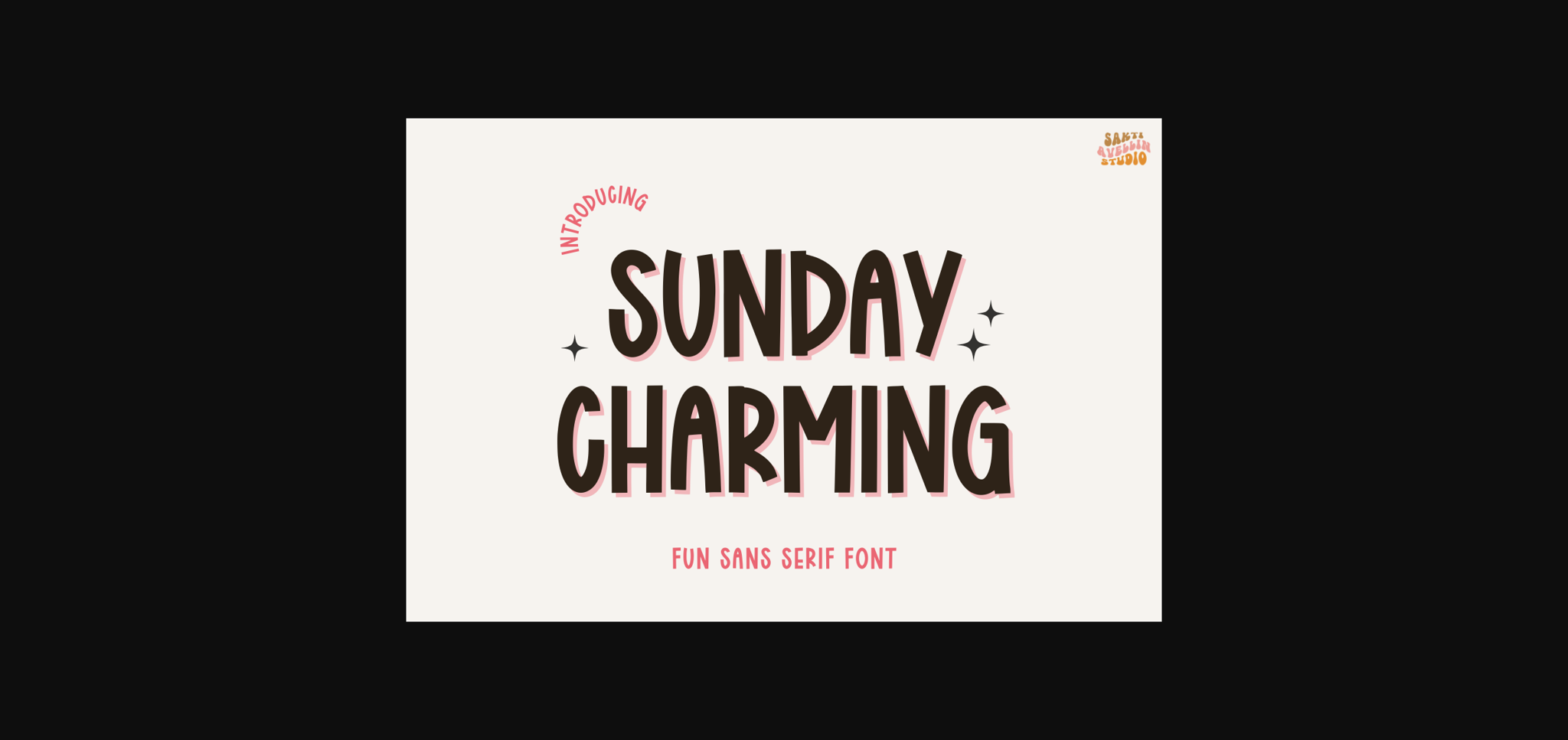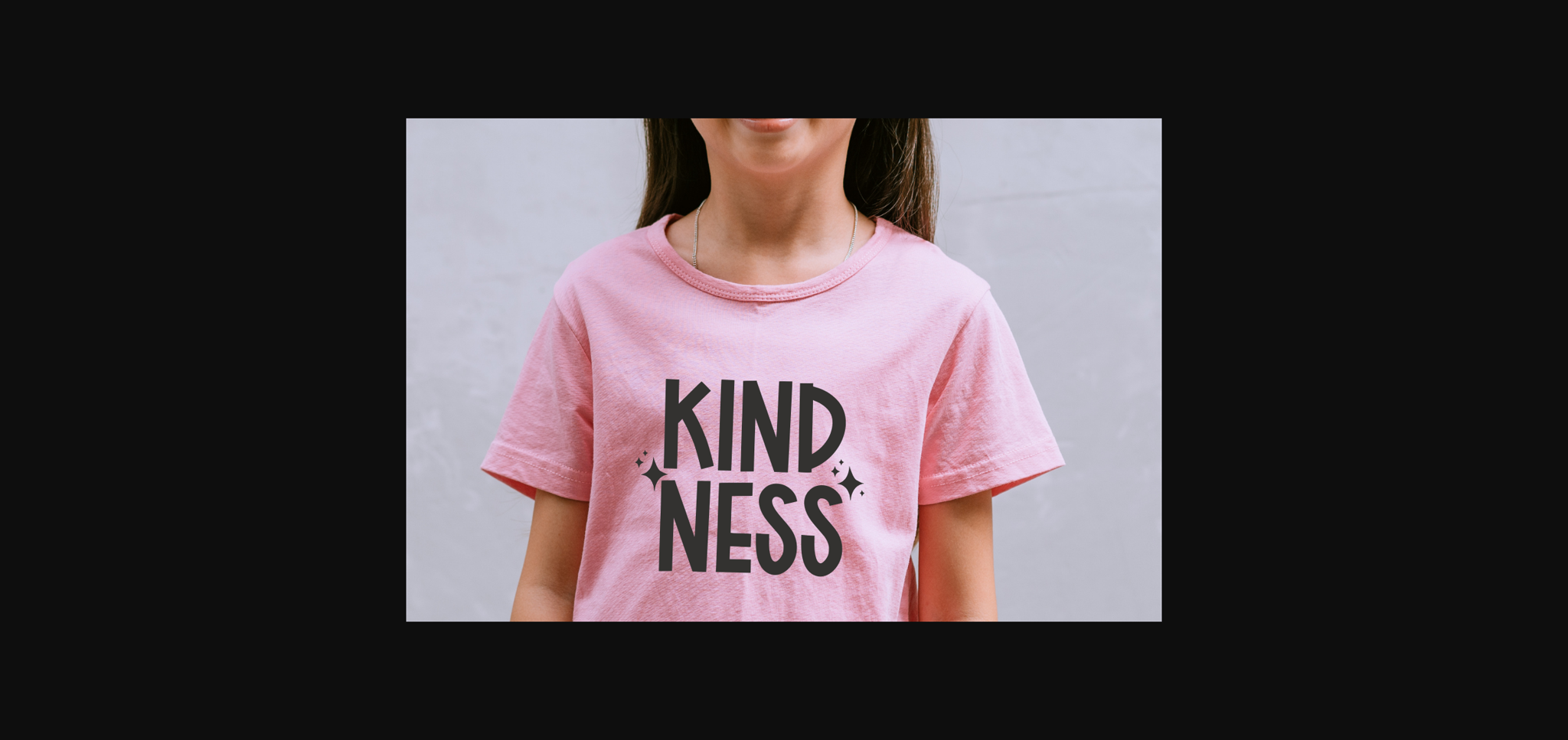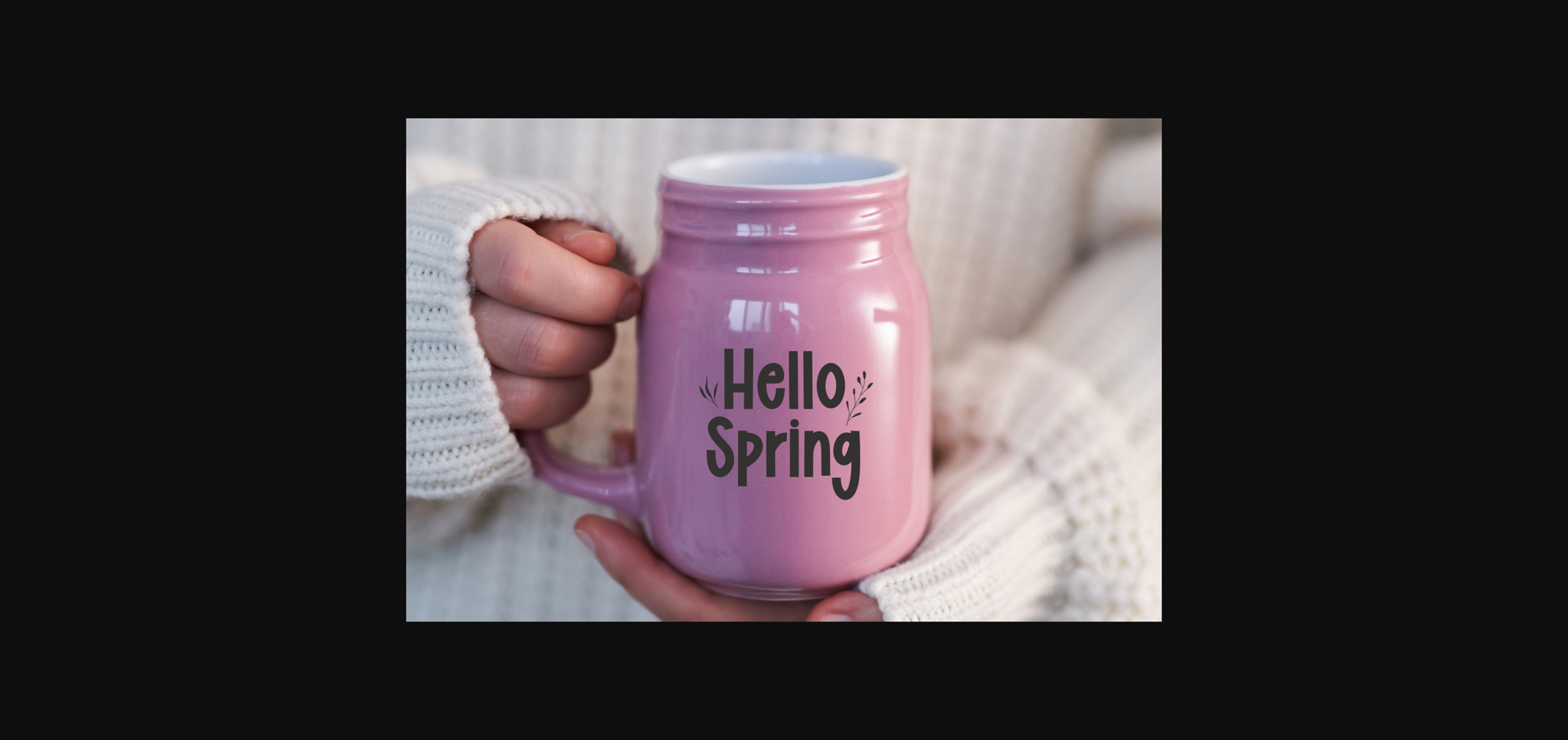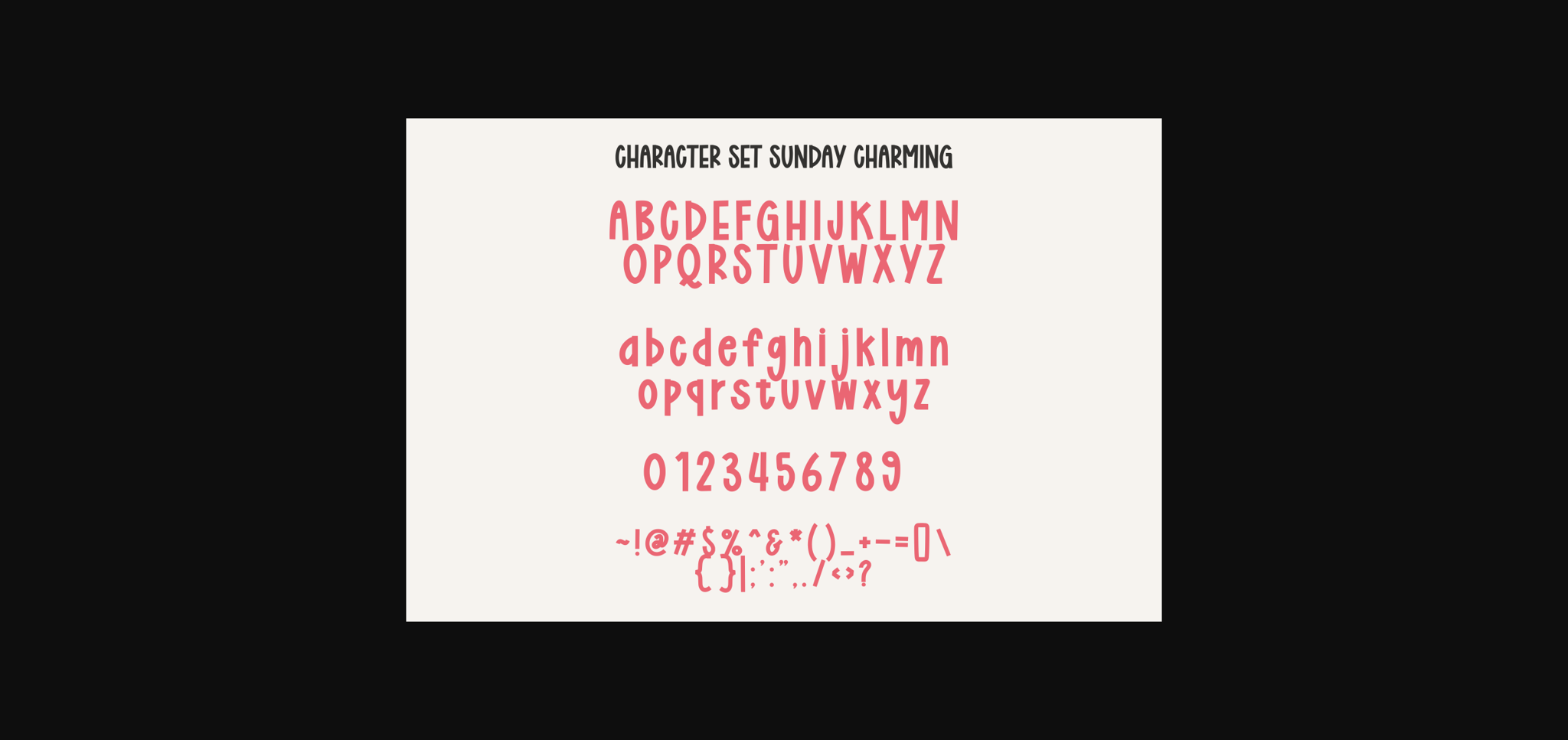
About Sunday Charming Font
Sunday Charming, an entertaining sans serif typeface that boasts adaptability for diverse creative endeavors. Carefully crafted, this font effortlessly enhances your illustrative needs from inspiring quotes to remarkable packaging designs. It tastefully infuses style into wearable products like t-shirts and neatly etches its beauty on drinkware such as tumblers and mugs, amplifying their flair. Unleash your creativity with Sunday Charming, the ultimate font to add a unique touch to countless projects.